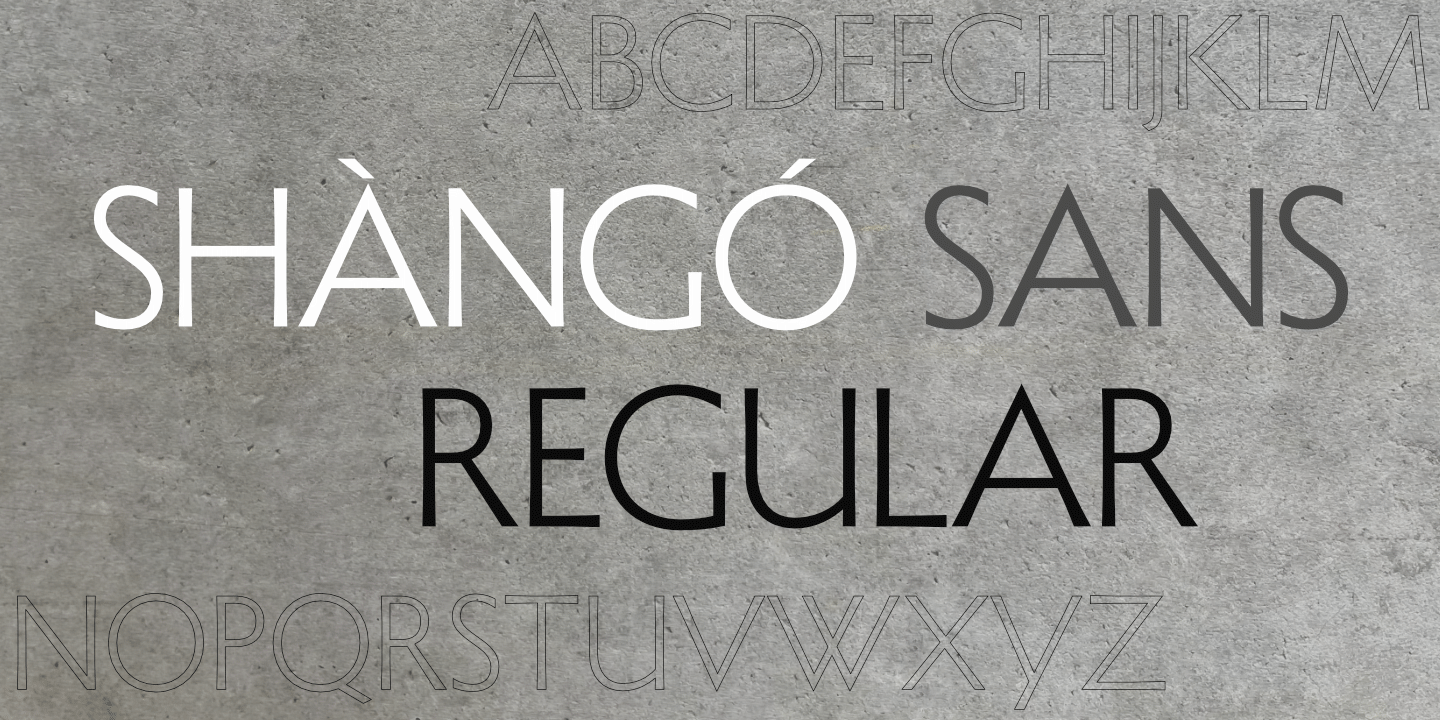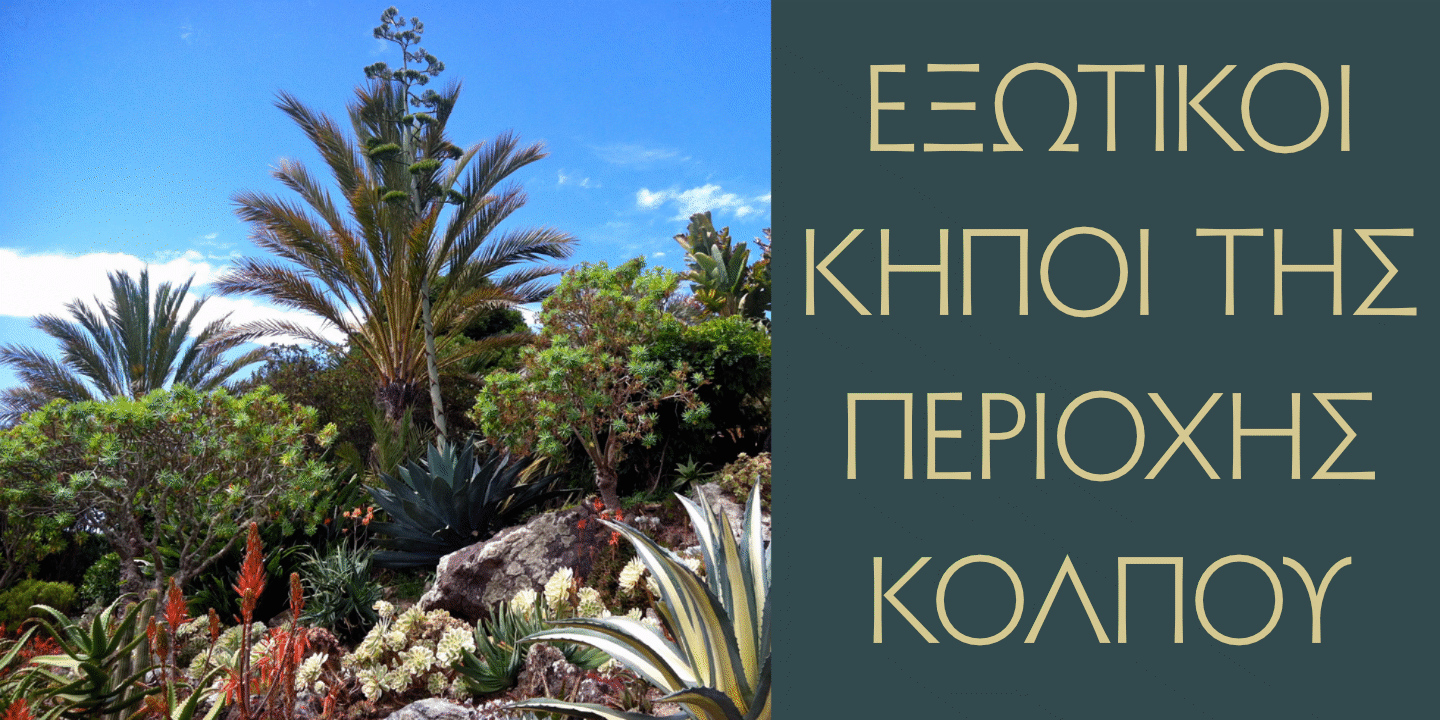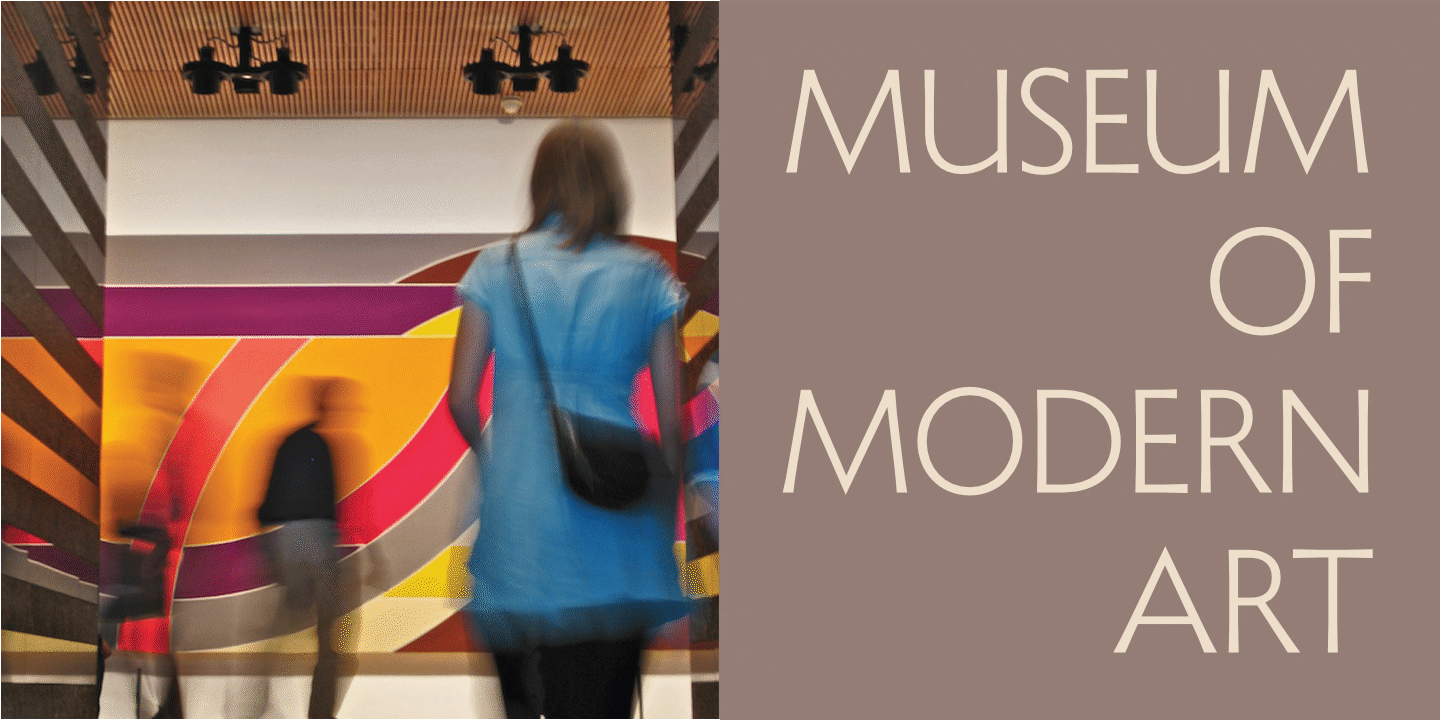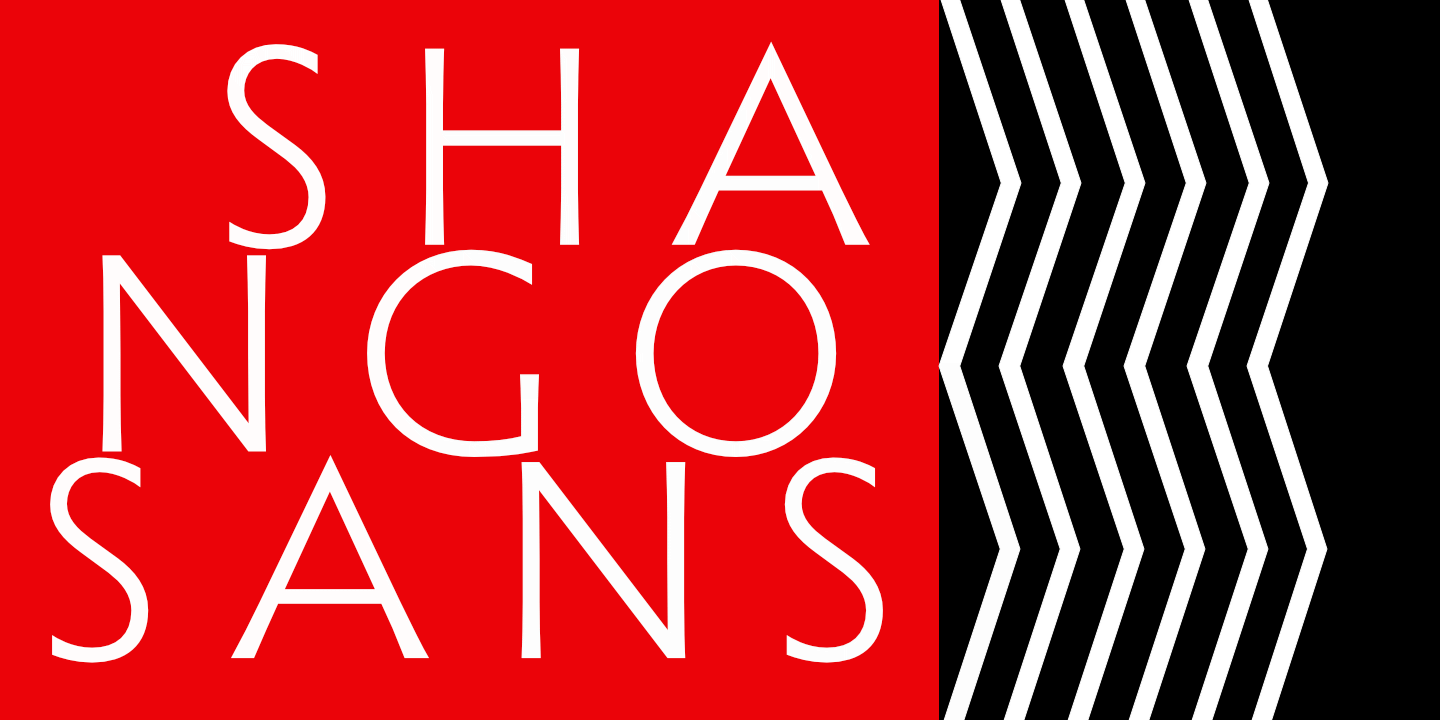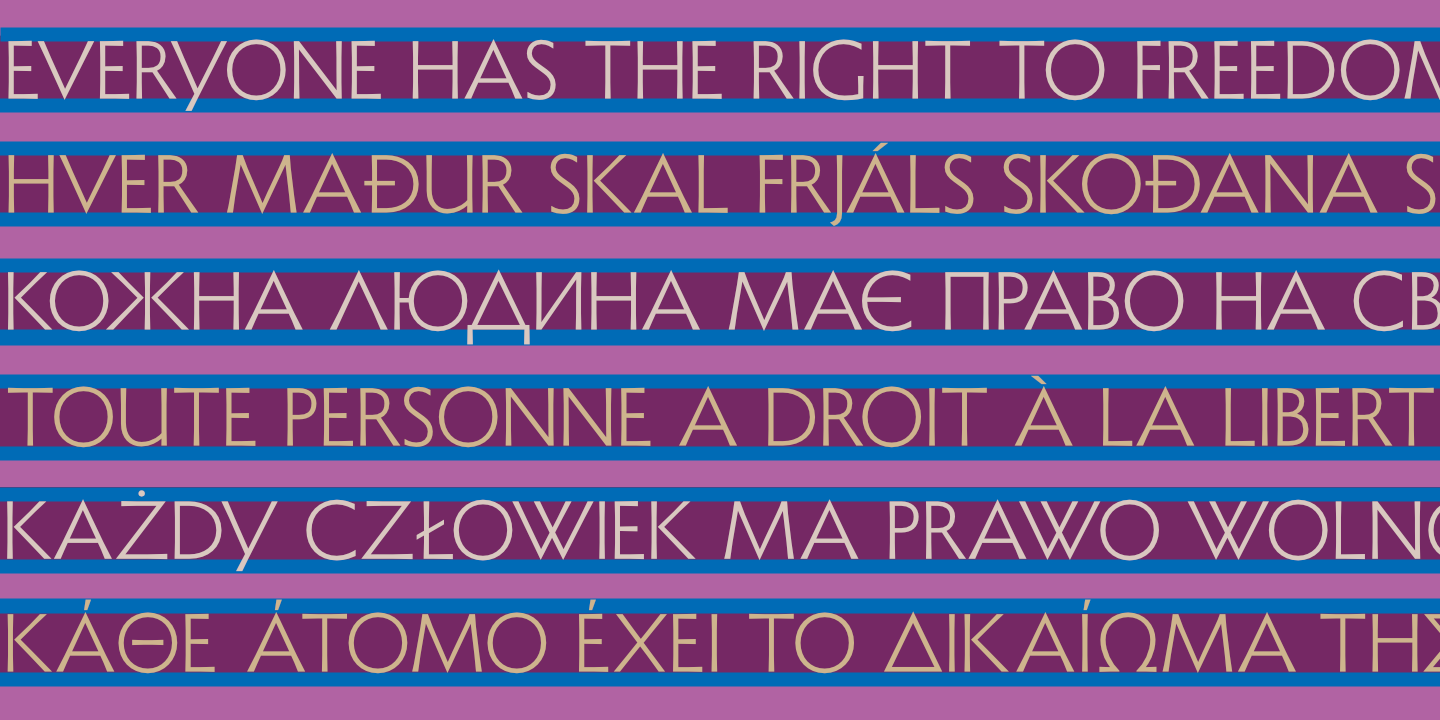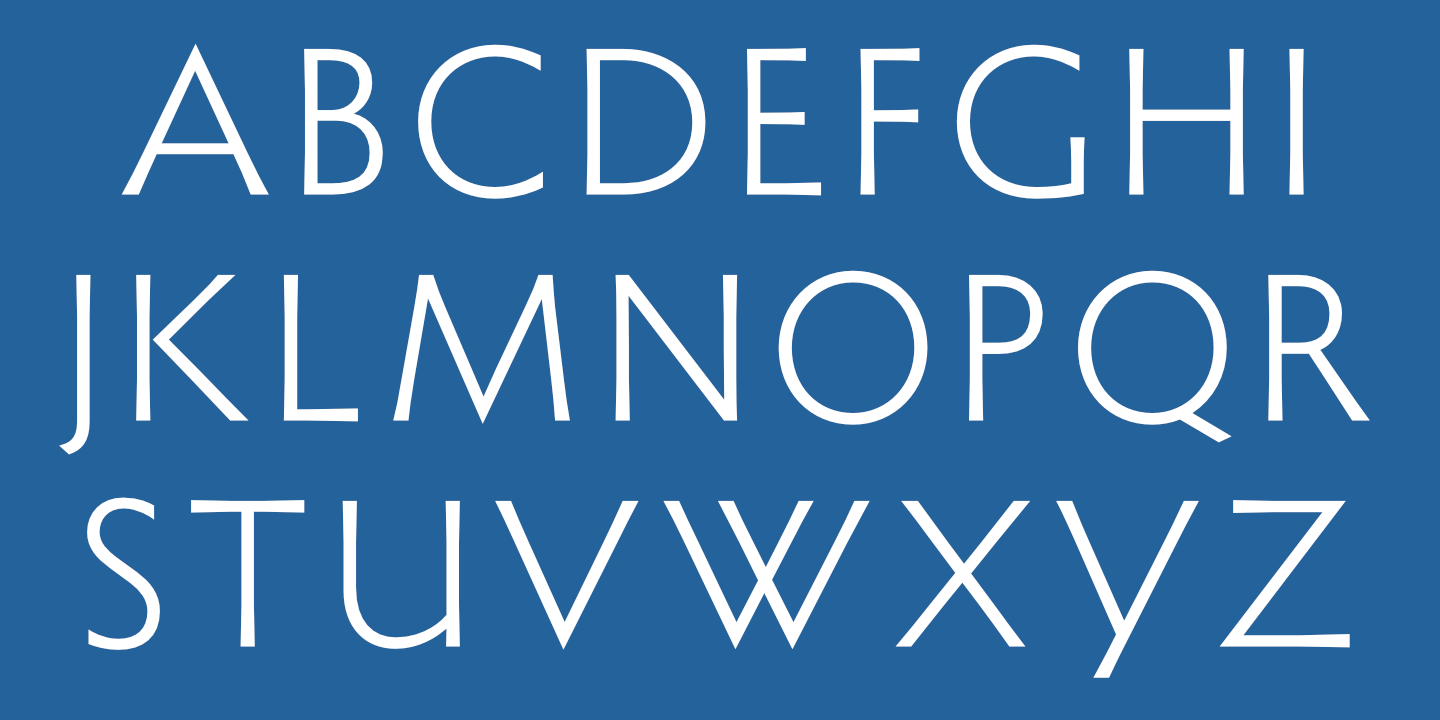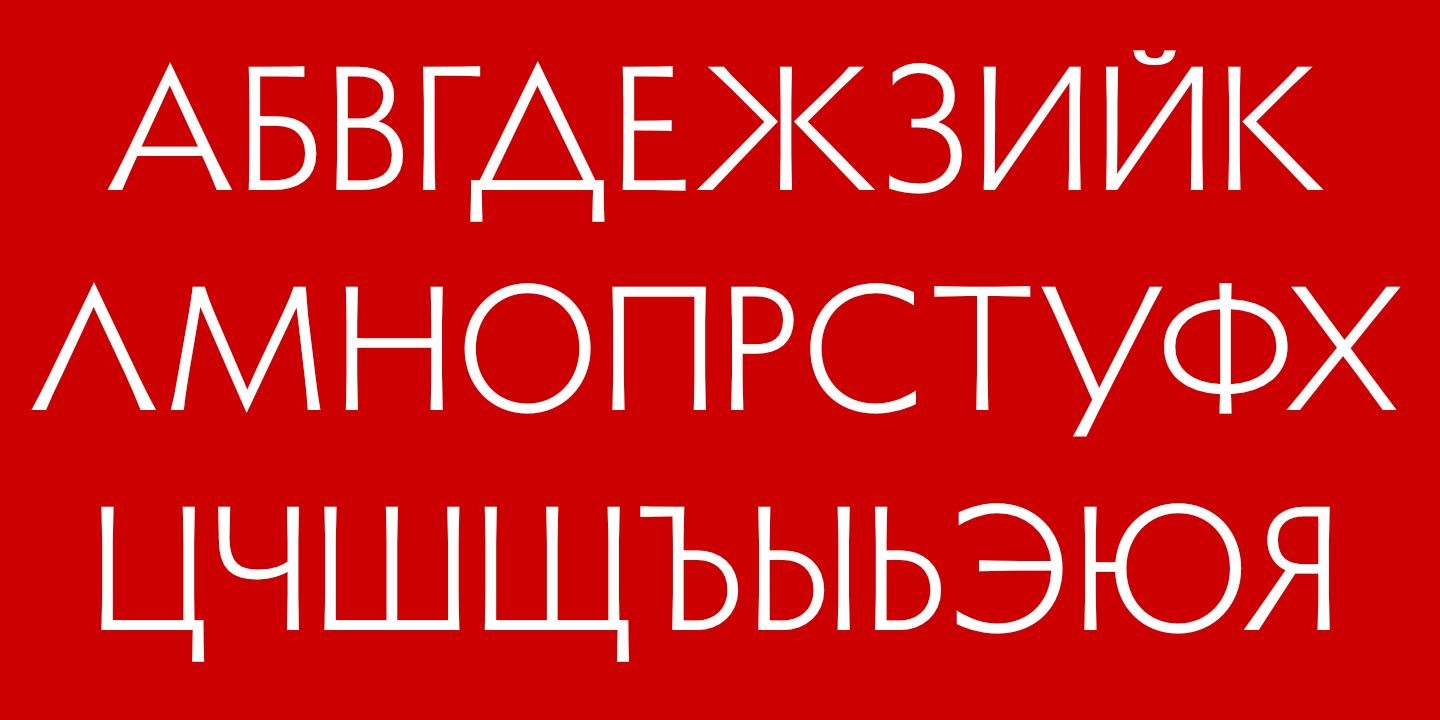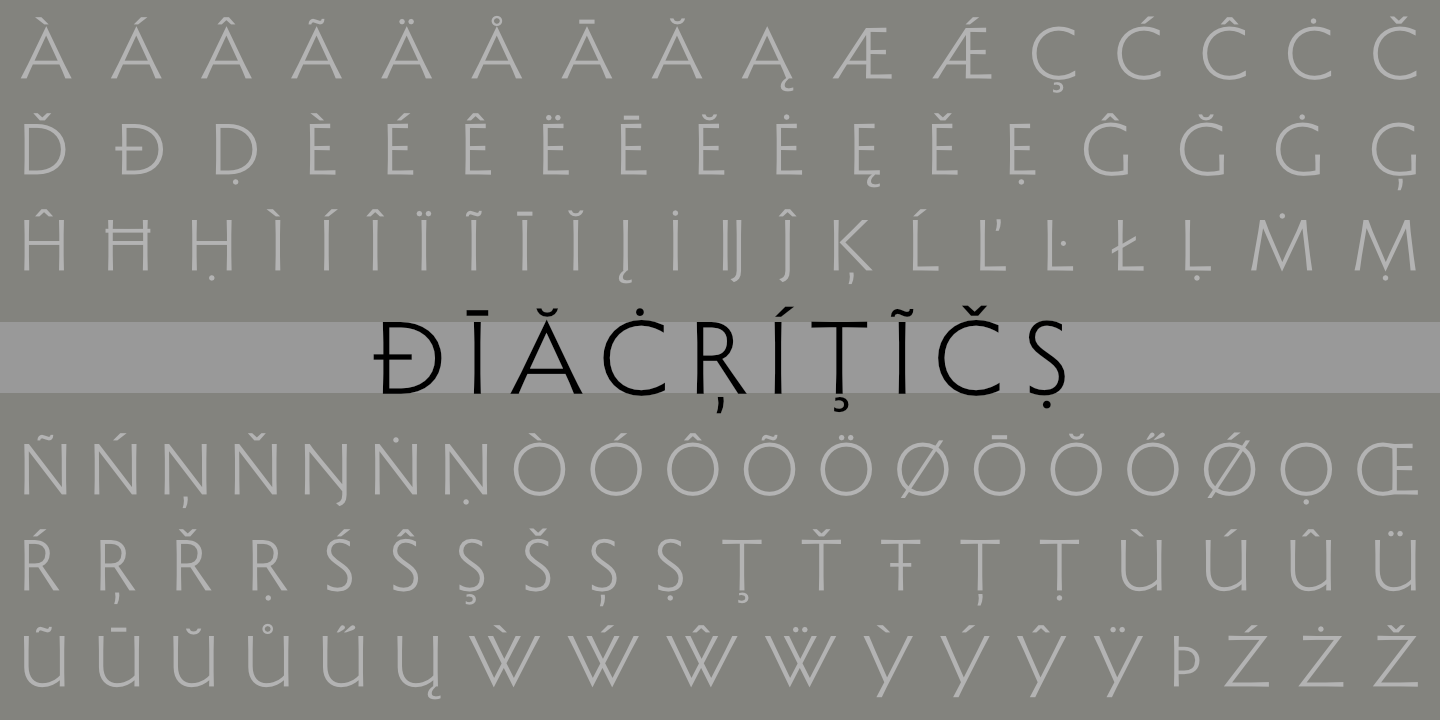
Shàngó Sans supports most European languages. See Glyphs for details.
Shàngó Sans supports most languages that use the Cyrillic alphabet. See Glyphs for details.
Shàngó Sans supports modern (monotonic) Greek. See Glyphs for details.
Shàngó Sans Regular: Numerals, basic punctuation, currency symbols, and a sampling of ornaments.
Shàngó Sans Regular supports most European languages, including modern Greek and Cyrillic-using languages.
Notice that light text on a dark background appears slightly heavier than dark text on a light background. blank
SHANGO SANS with thunder jags
The Shàngó family includes four styles: Classic, Gothic, Sans, and Chiseled.